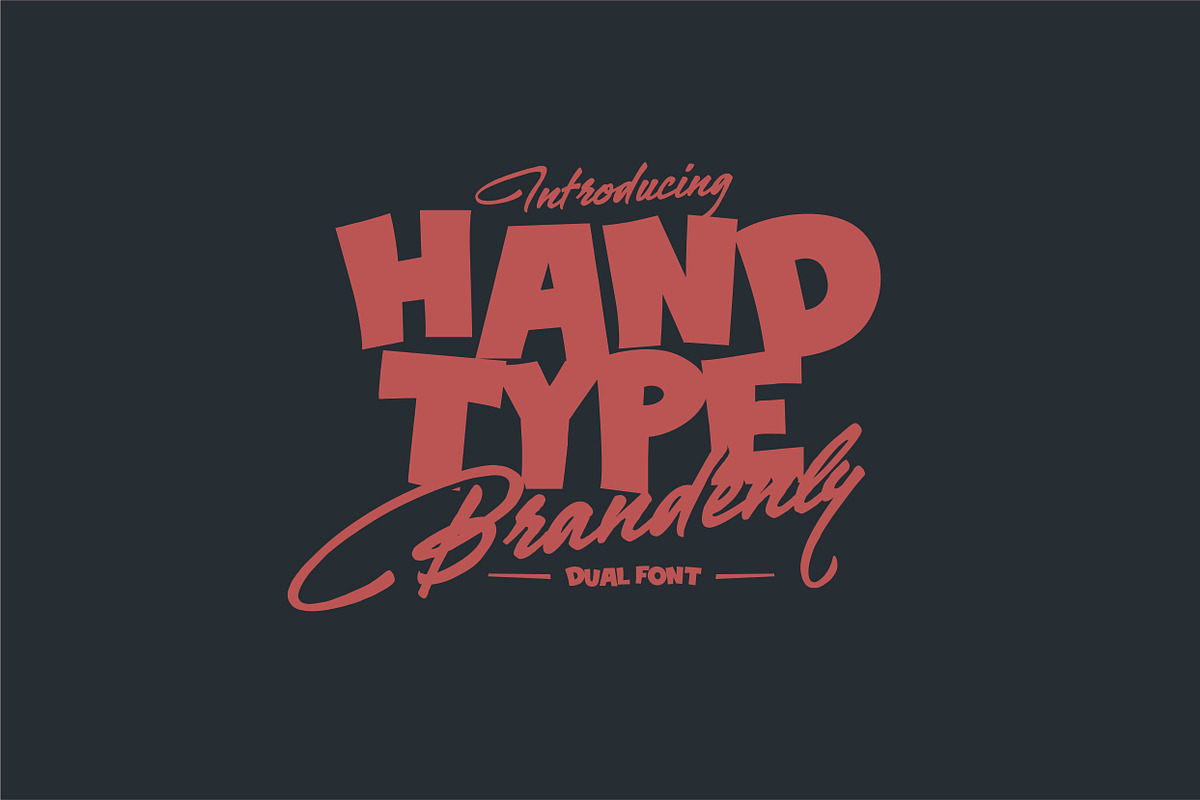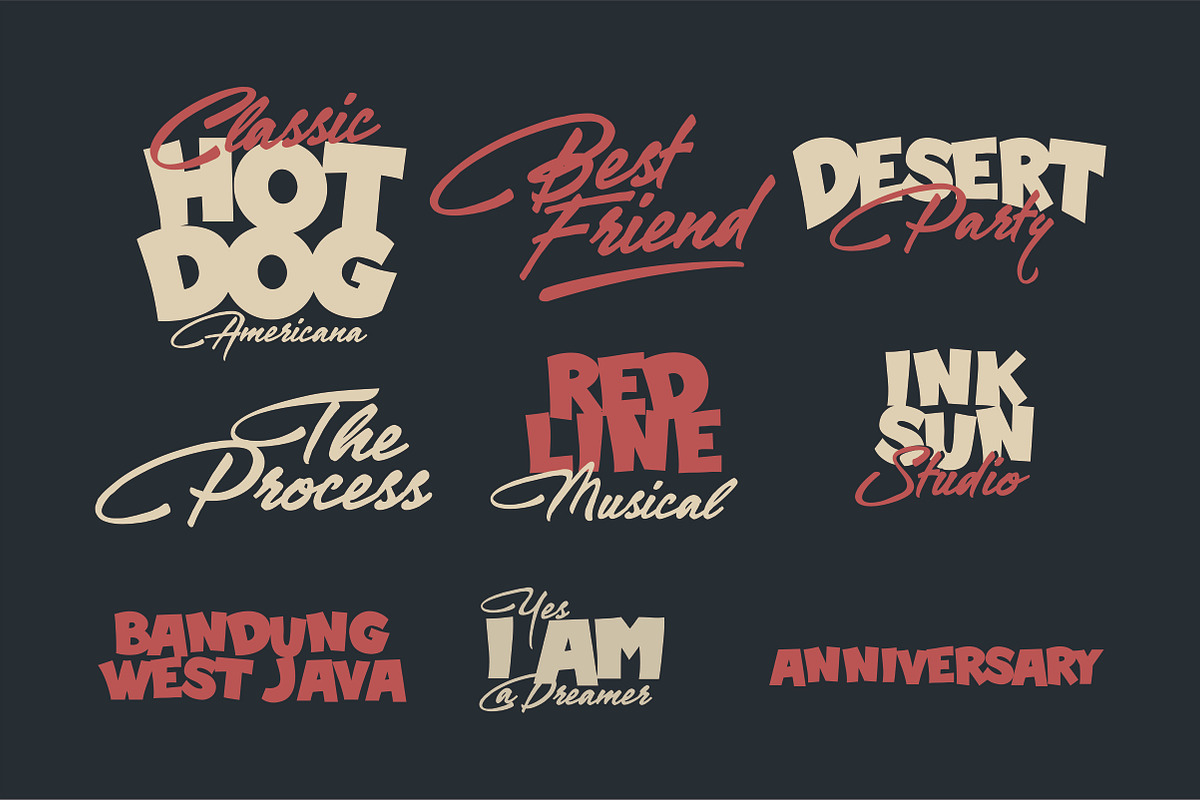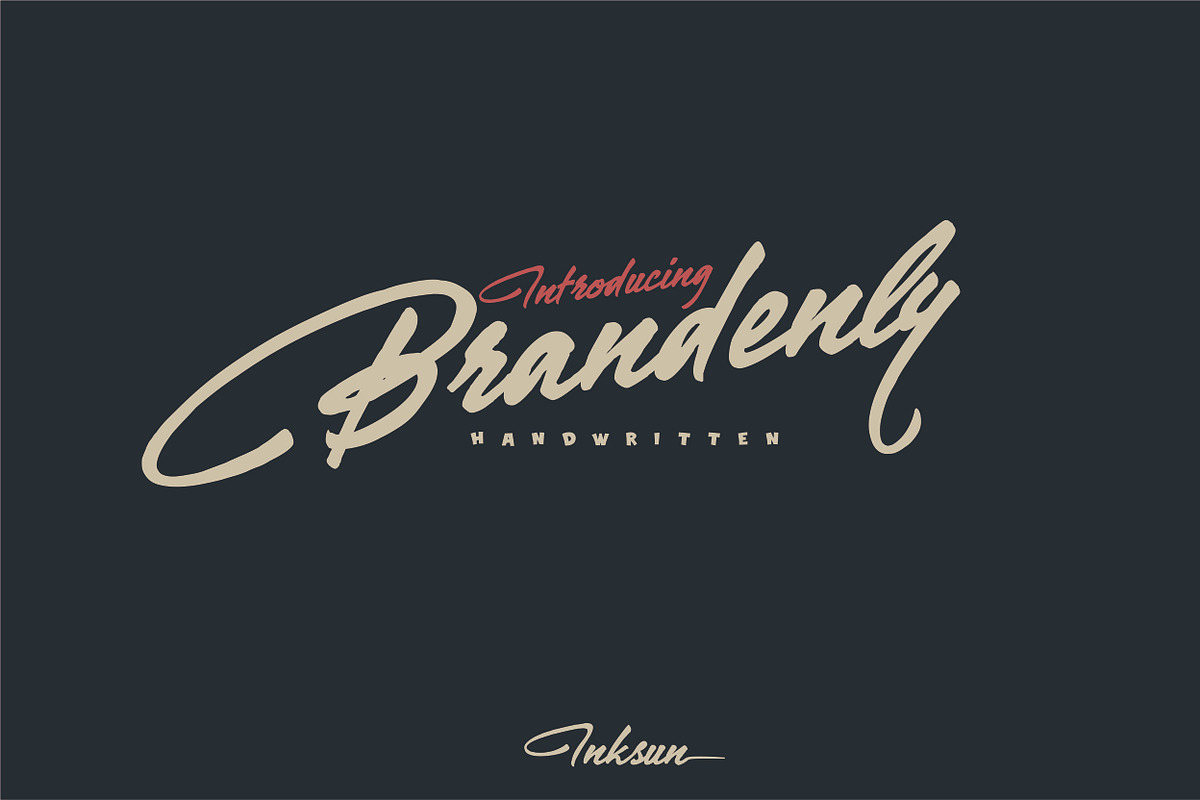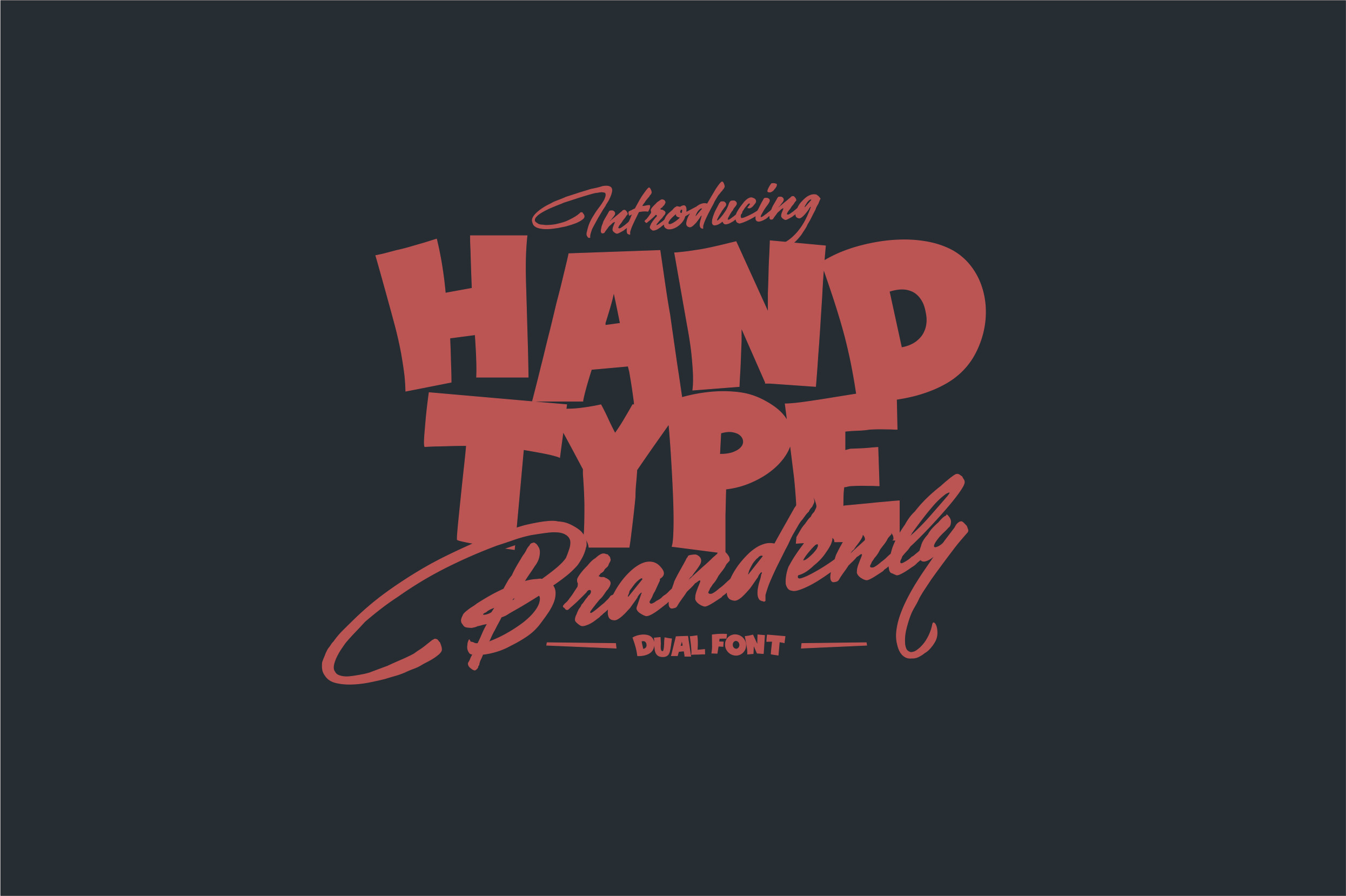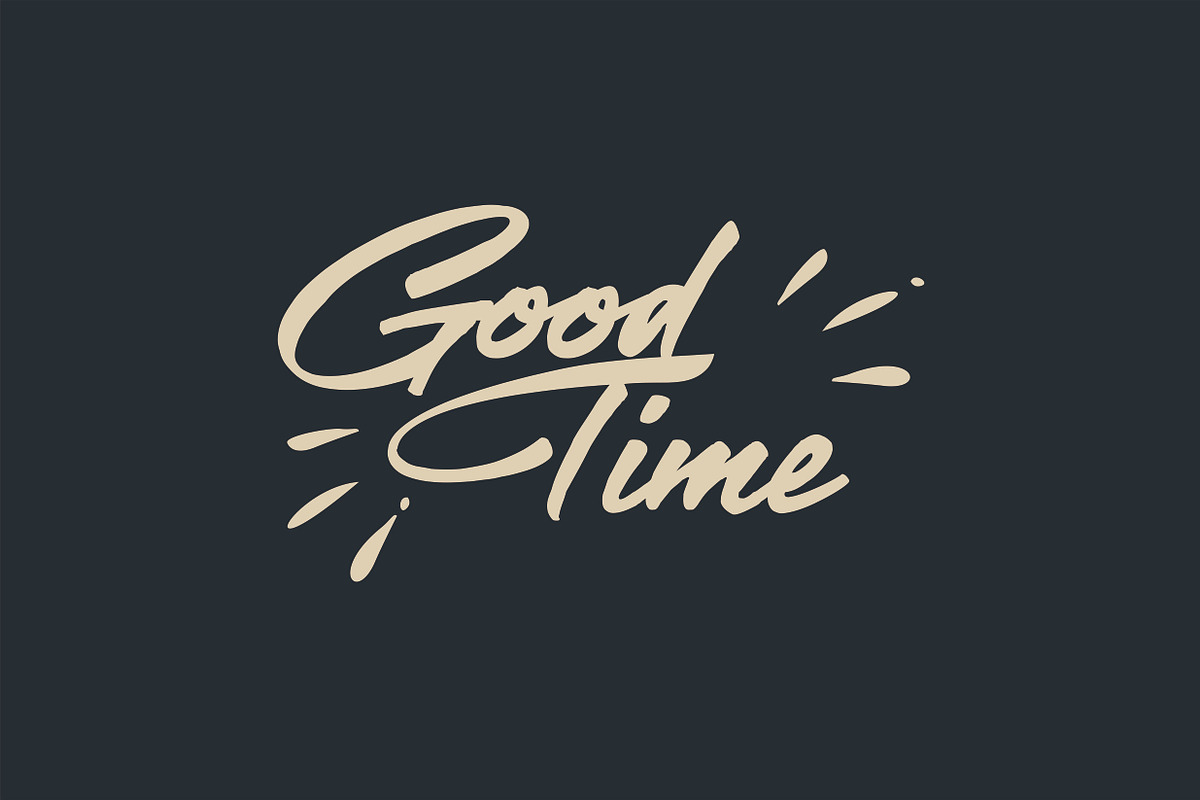
Brandenly Dual font
Brandenly is a font with handwritten style, this font is also accompanied by brigther HND, both of which are very suitable for posters, logos or anything vintage. Features